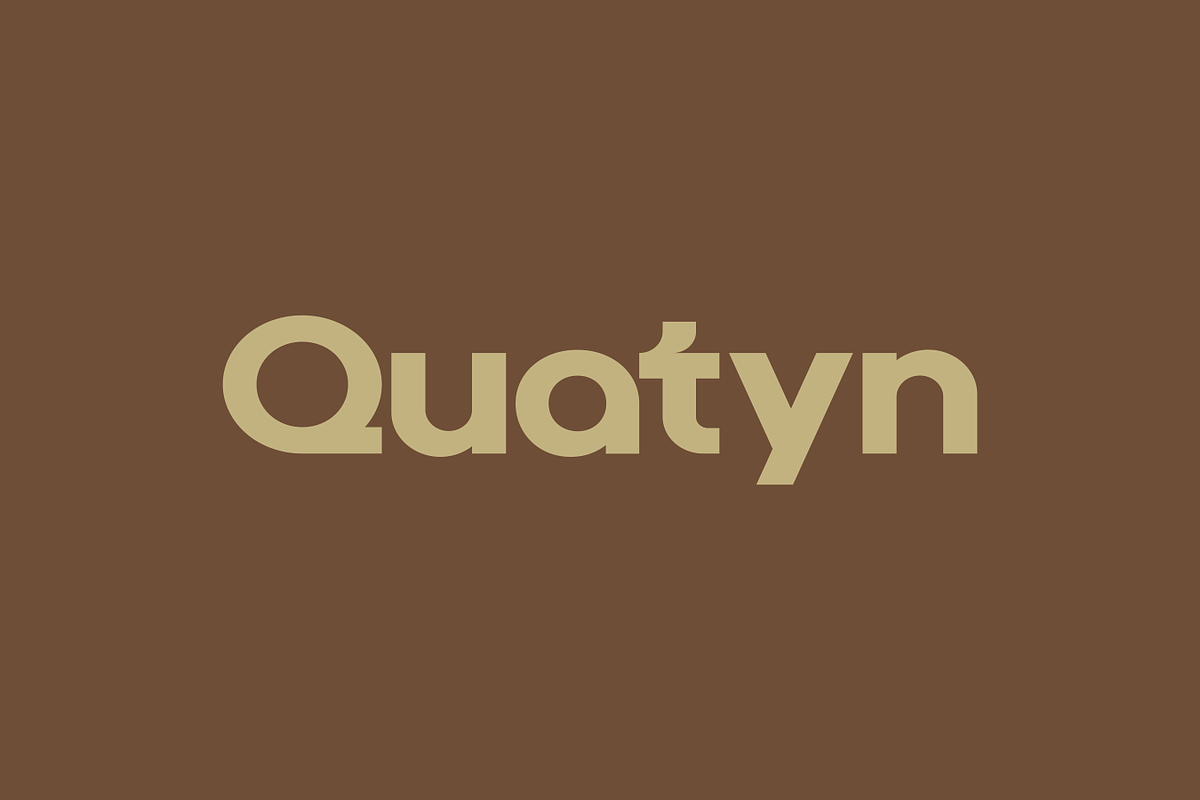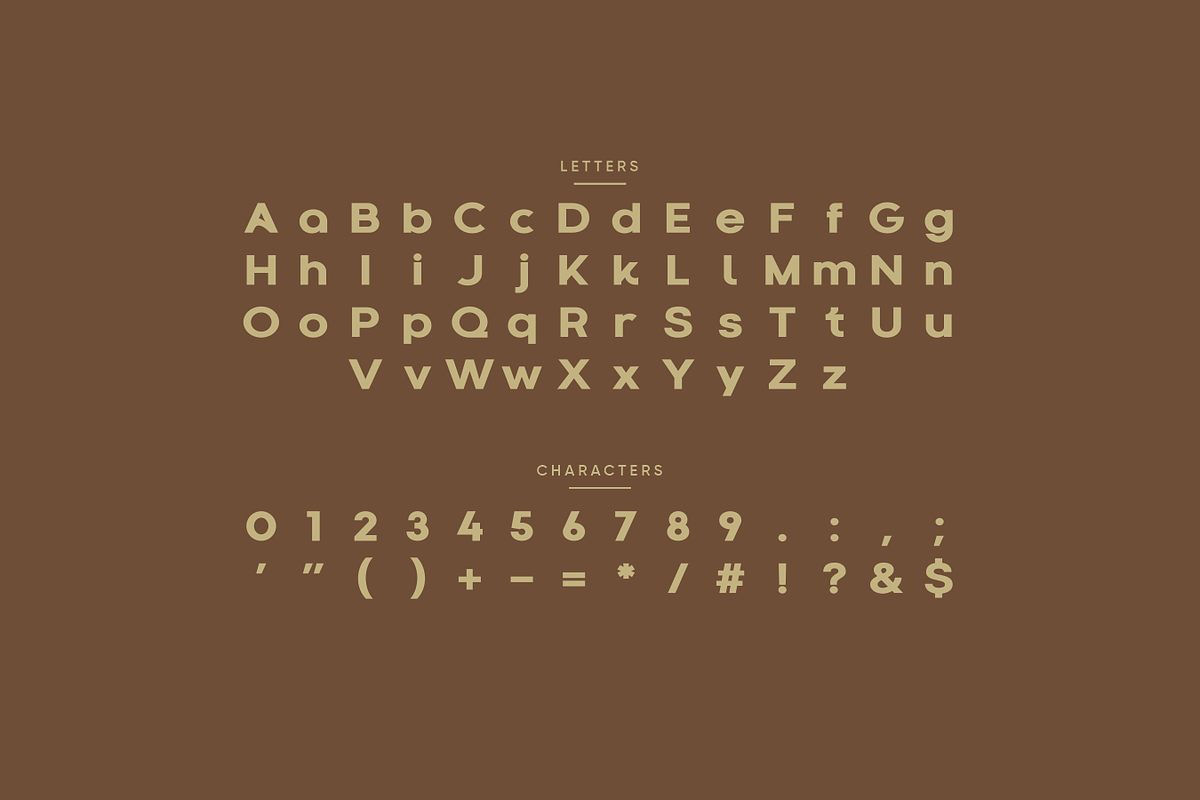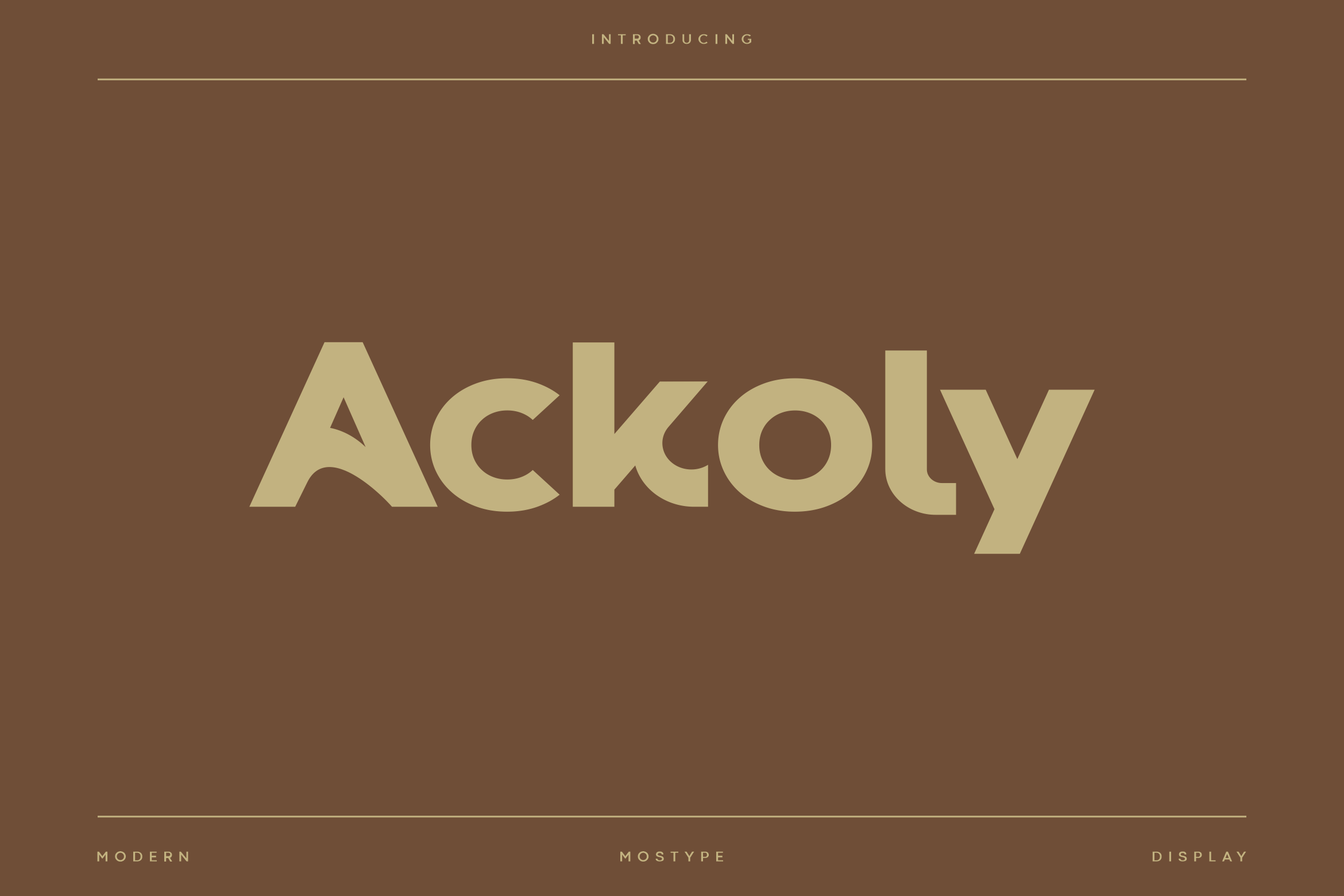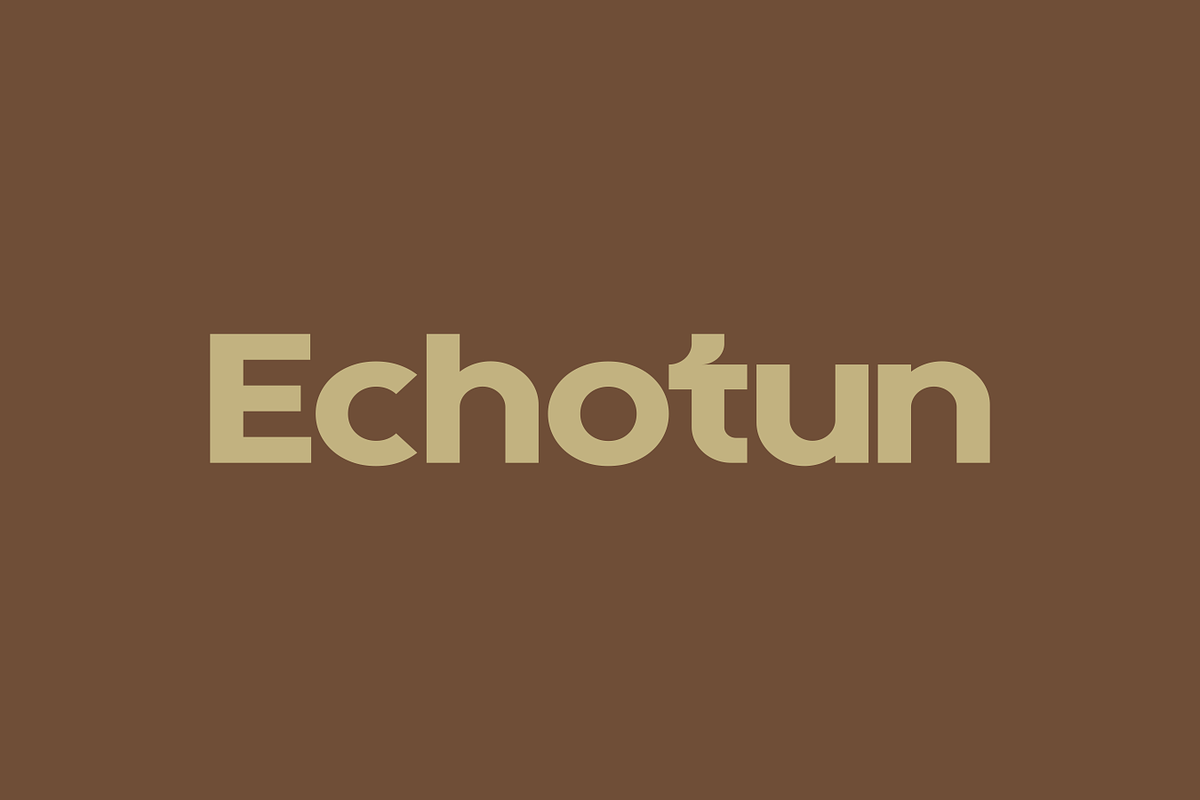
Ackoly - Modern Display Typeface
Ackoly is a meticulously crafted typeface designed specifically for logos, branding, headers, and titling. With spacing tailored for impactful logos and branding materials, this font ensures your designs make a lasting impression. Please note, this font is not suitable for body text, but excels in visual applications where every detail matters. Elevate your design projects with Ackoly Font today.